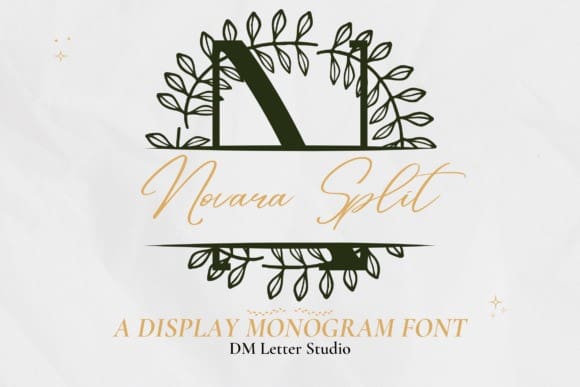
Novara Split Monogram Font
Novara Split Monogram Font is a modern split serif font made for effortless personalization. Each uppercase letter includes a precise horizontal split that opens a clear space for names, dates, or short phrases. The letterforms keep Novara’s calm, architectural rhythm, so your custom text settles neatly into a refined silhouette. Use it for wedding suites, boutique branding, packaging, keepsakes, vinyl decals, laser engraving, embroidery, and Cricut crafts that need a crisp, contemporary split monogram.
This split edition preserves the original Novara proportions: steady strokes, open counters, and sculpted serifs that stay readable from small tags to statement signage. The split line is consistent across the alphabet, which makes alignment predictable in Canva, Cricut Design Space, Silhouette Studio, Photoshop, Illustrator, and Procreate. Whether you are building a wedding crest, a luxury candle label, or a set of gift box lids, Novara Split Monogram delivers a balanced, professional finish.
Installation is simple on Mac and Windows. The font includes uppercase A–Z, numerals, punctuation, and multilingual support for extended European languages. Names with accents render cleanly, and cutters or lasers produce sharp edges on paper, acrylic, leather, metal, and wood. Pair it with a light script for romance or a neutral sans for a gallery-clean system.
If you want a split monogram that is modern, dependable, and easy to customize, Novara Split Monogram gives you clarity and control without extra tweaking.